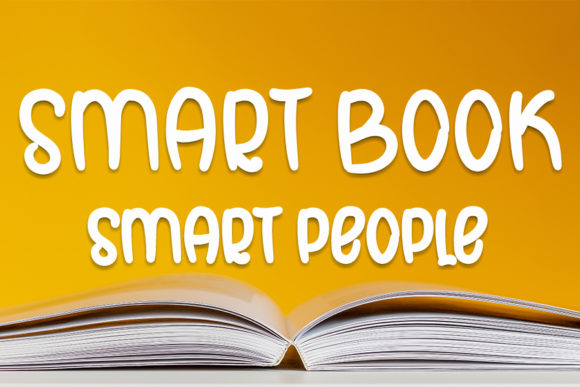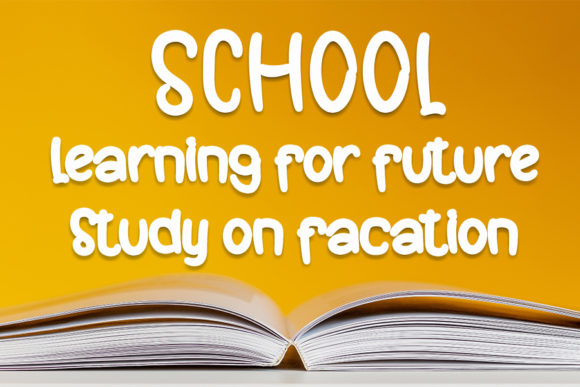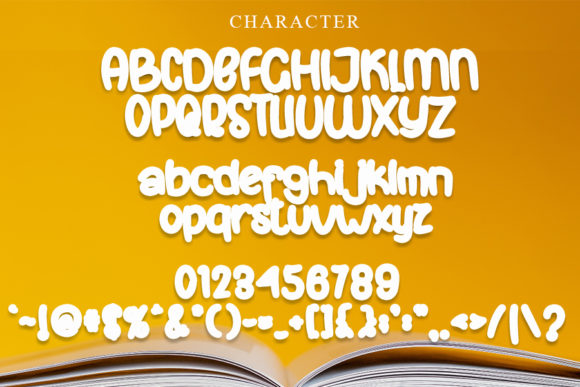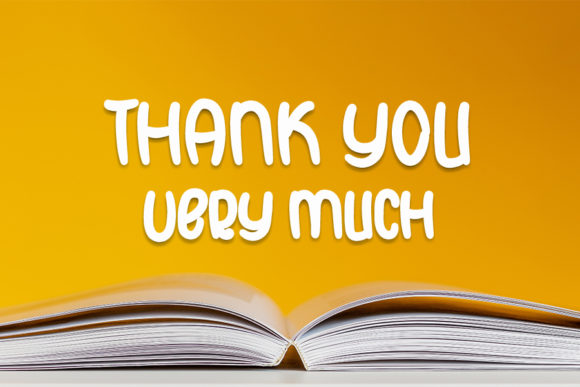
Unique Book Line Font
About Unique Book Line Font
Unique Book Line is a cute and quirky handwritten font. Colorful and friendly, this font is the perfect choice for a variety of creative ideas! Add it to your most creative ideas and notice how it makes them come alive!